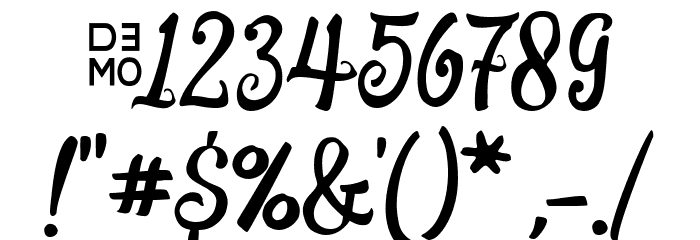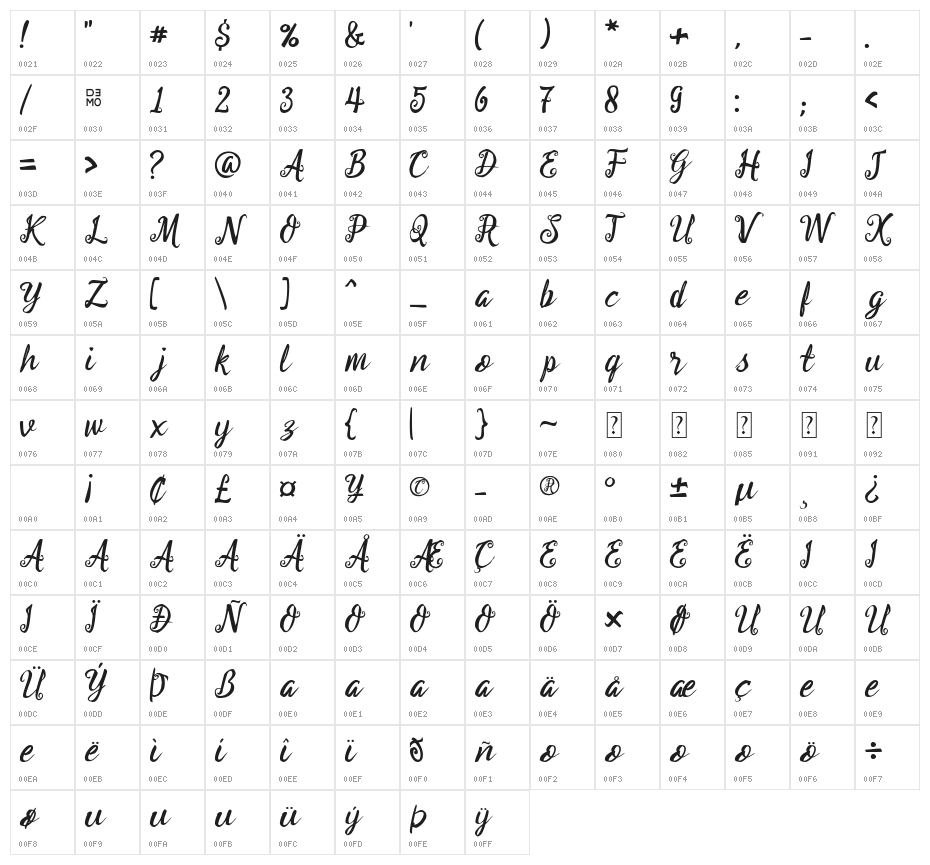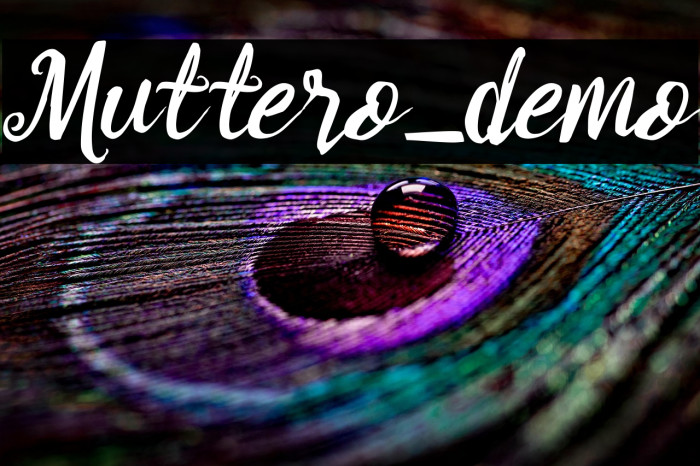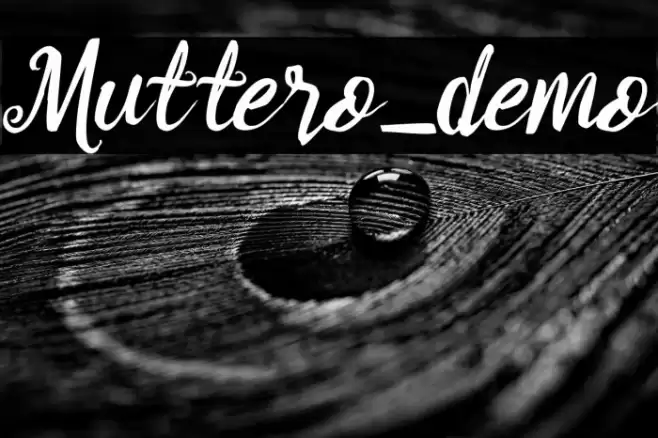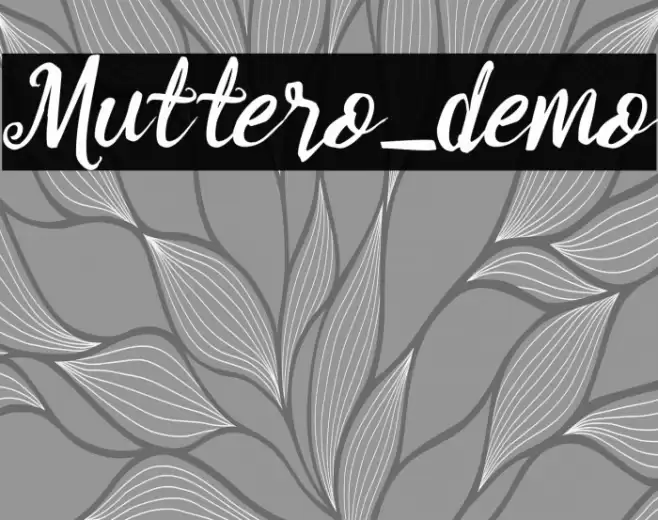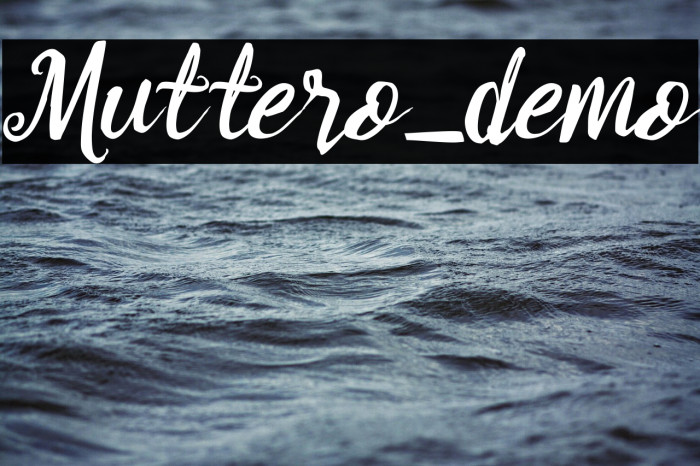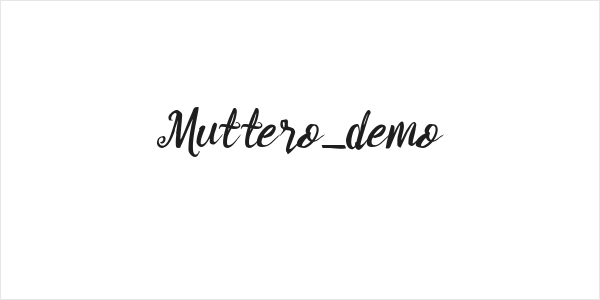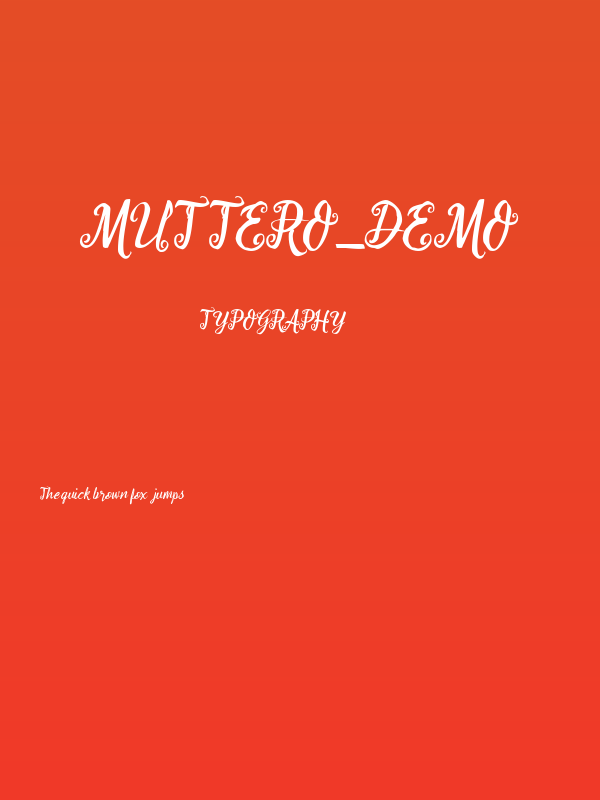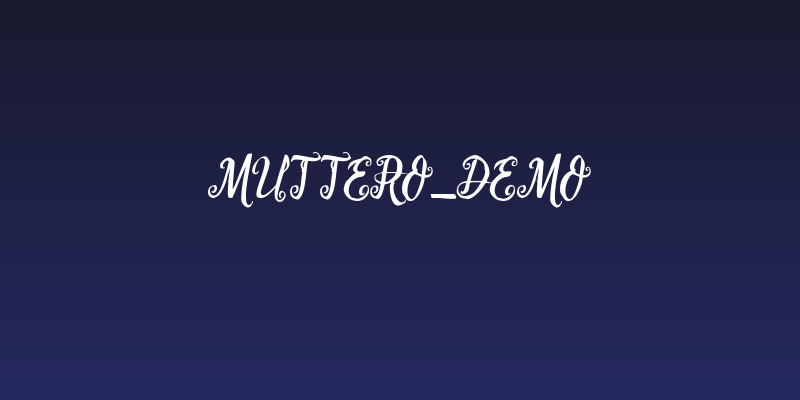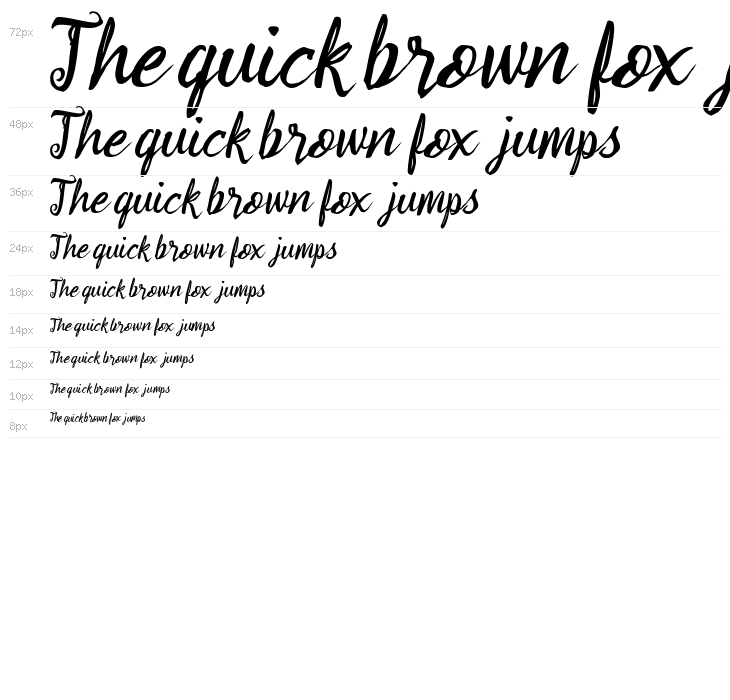
Muttero_demo Font
Muttero_demo Description
This font features an elegant and decorative script style with a playful and artistic flair. The uppercase letters are adorned with intricate swirls and curls, giving them a whimsical and ornate appearance. The lowercase letters maintain a smooth and flowing script style, providing a harmonious balance between elegance and readability. The numerals are bold and slightly stylized, ensuring they stand out while maintaining consistency with the overall design. Special characters are creatively integrated, adding to the font's versatility. This font is perfect for projects that require a touch of sophistication and creativity.